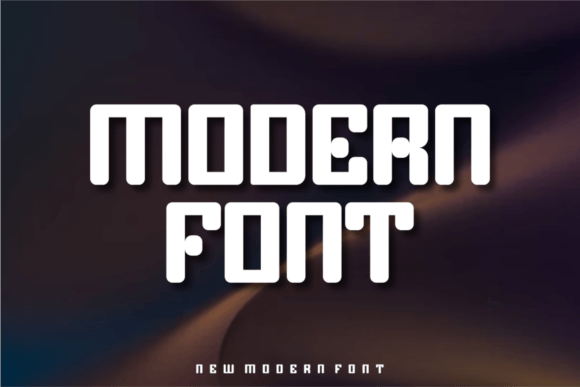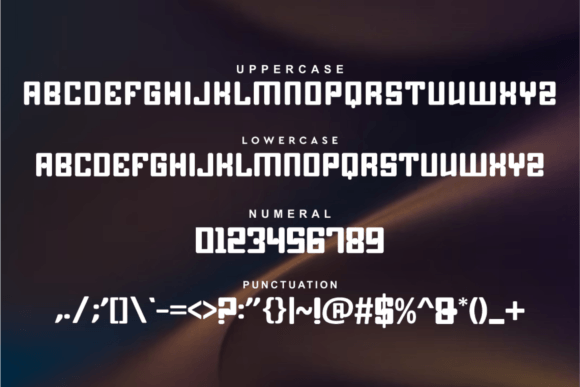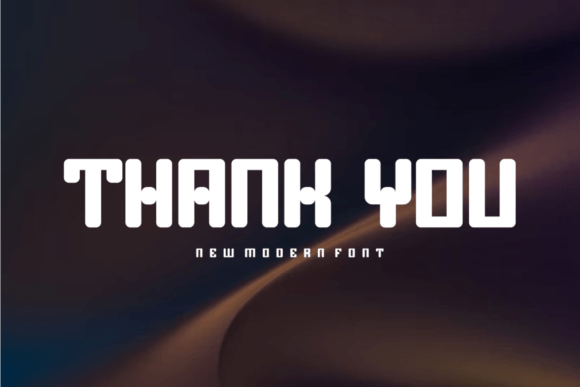
Introduction to Oxigas Font
Oxigas is a modern and futuristic sans serif font.
Oxigas was crafted to give your headlines and logotype projects a stylish touch This font reads as strong, confident, and dynamic and can add tons of character to your designs.
Key Features of Oxigas Font